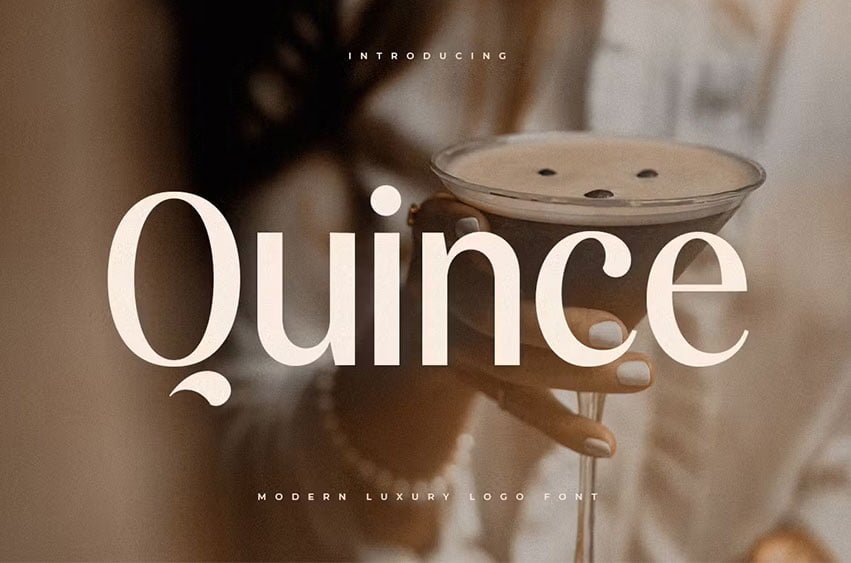
Quince Luxury Logo Font is a modern Luxury Elegant Beauty font that we created specially for elegant branding needs, unique shapes will be ready to add value to your brand. It is so nice to leverage designers or product owners that need solutions to make their designs look more stylish and modern. And especially for Quince font, We prepared any characters to help you create unlimited variations for your creative needs.
- Unique Luxury Characters
- Ready with Lowercase and Uppercase characters